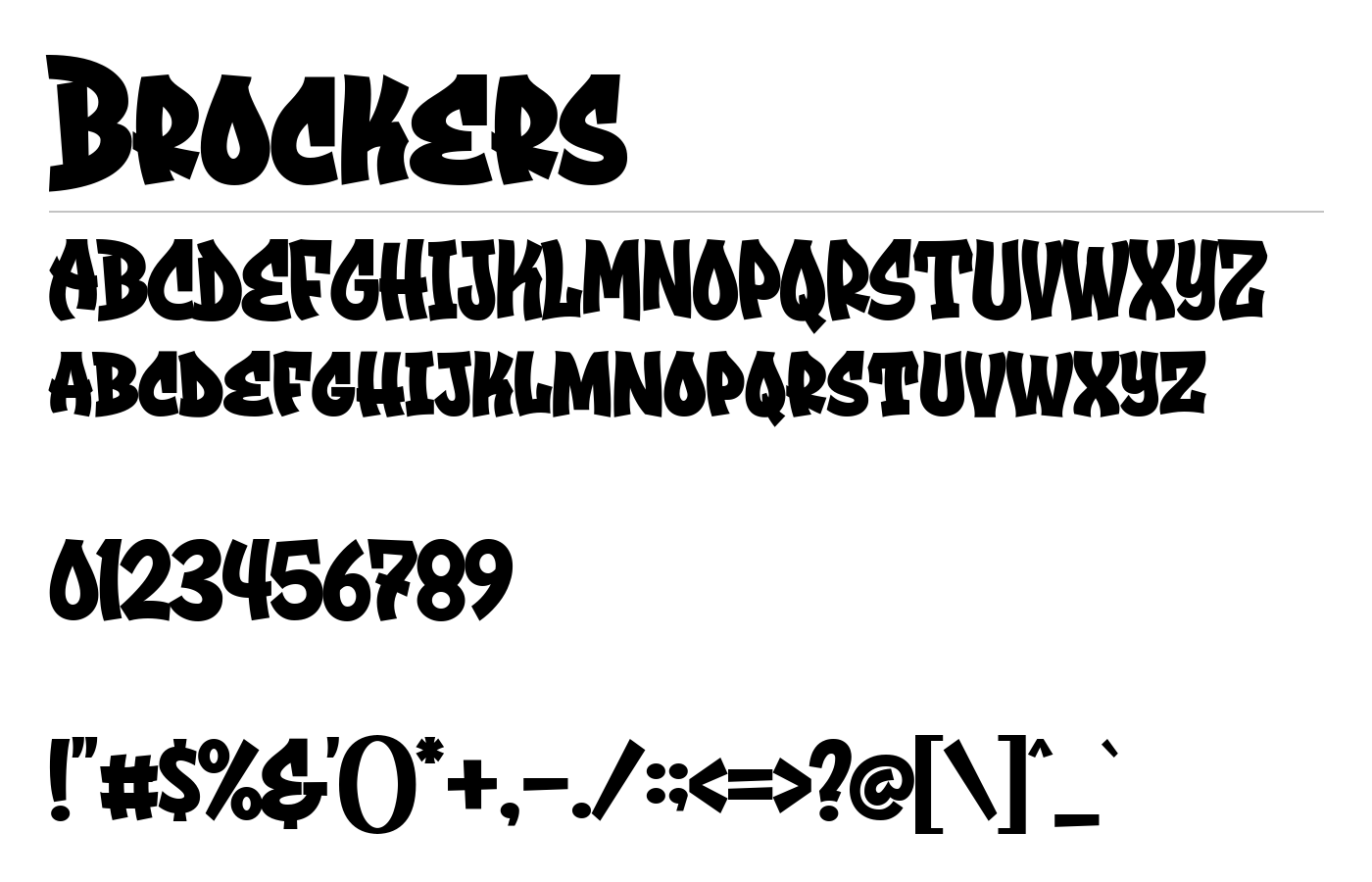
Brockers is a bold, playful display font with a strong, cartoonish vibe, featuring chunky, irregular letterforms that add a lively, energetic feel. Its heavy weight and condensed width make it ideal for eye-catching headlines, logos, and fun branding projects where a whimsical yet impactful style is desired. This font works best in contexts that call for a bold personality, such as children’s media, casual packaging, or informal advertising.
Brockers Font
About Brockers Font